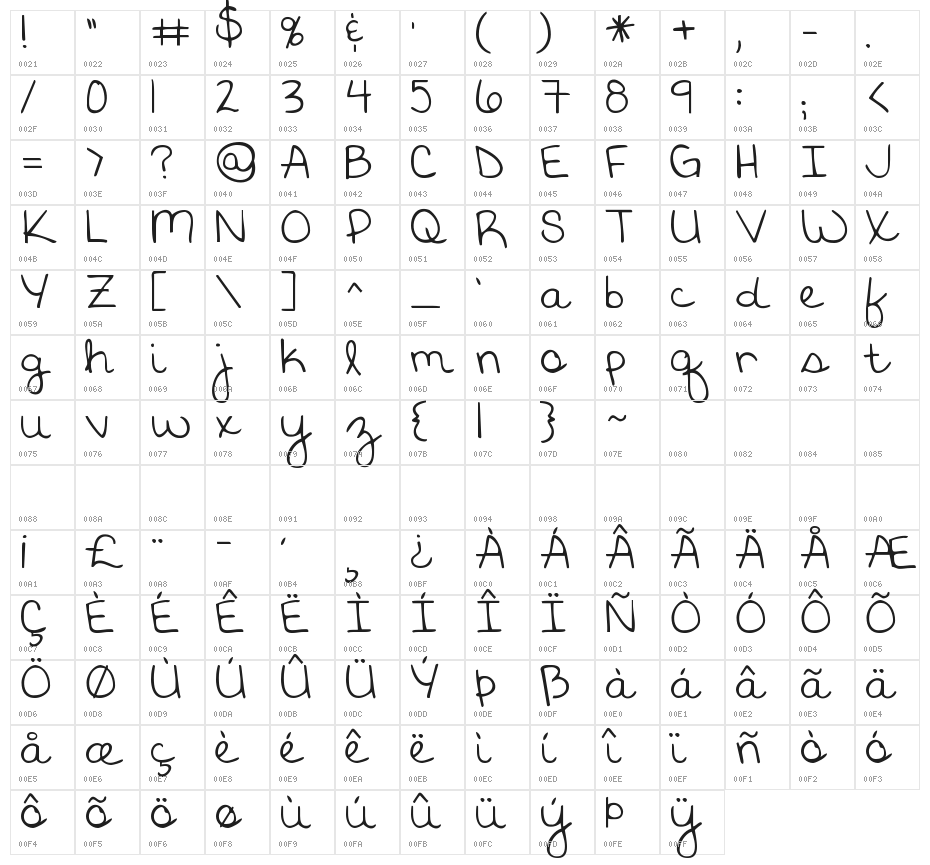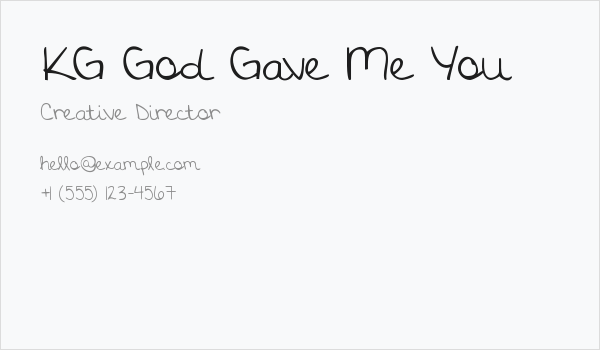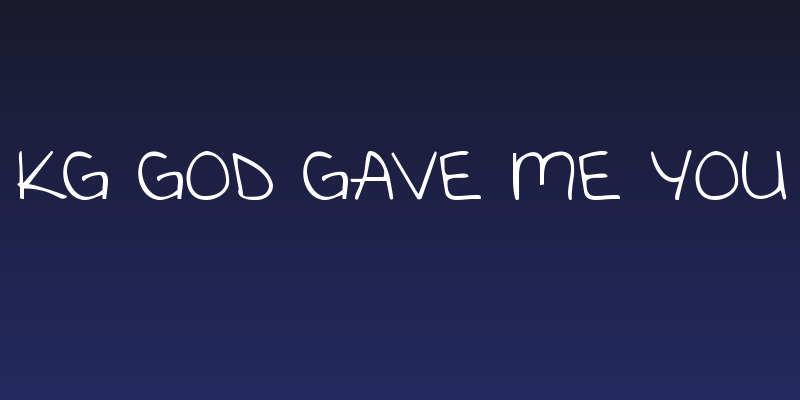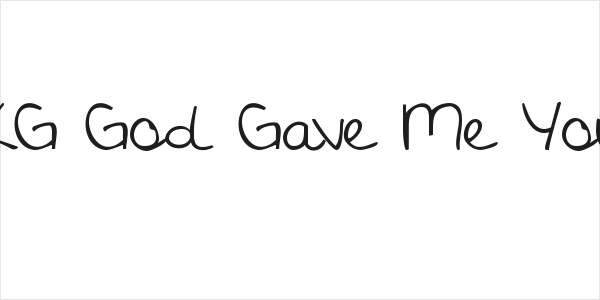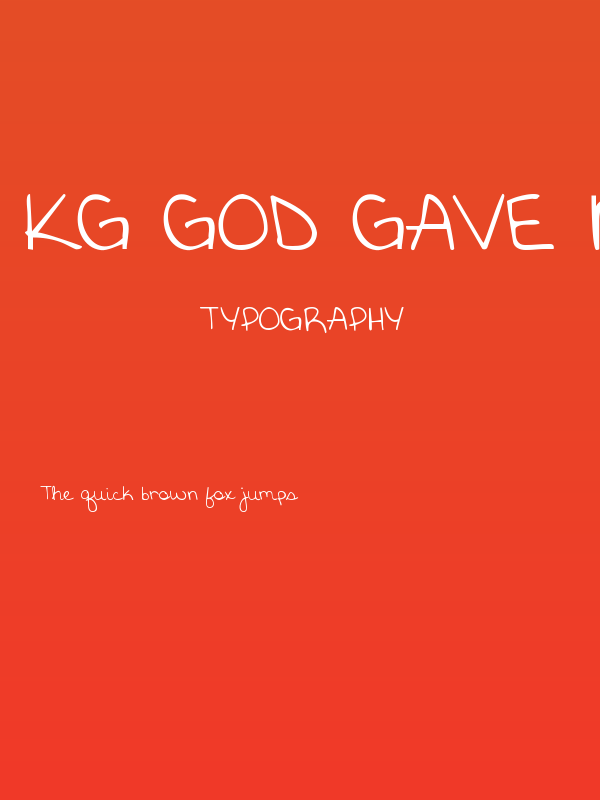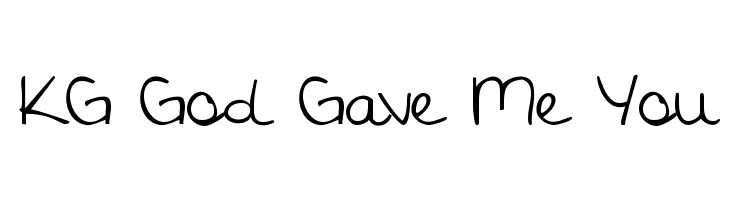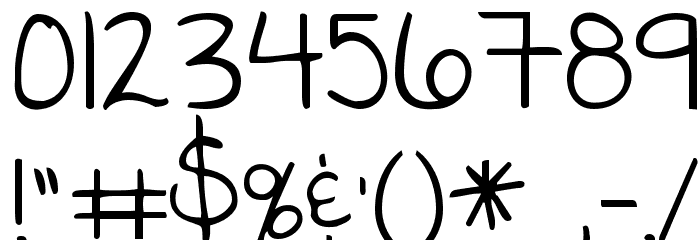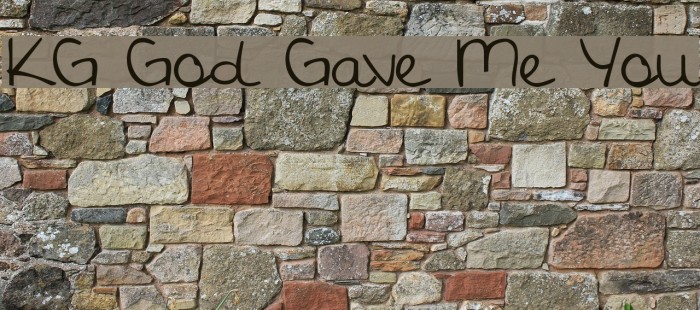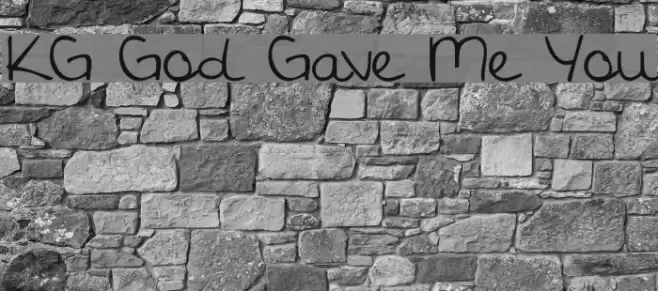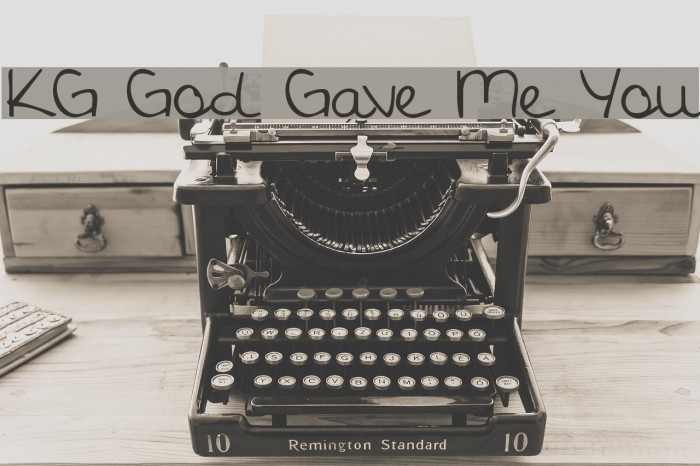
KG God Gave Me You Font
KG God Gave Me You Description
This playful and whimsical font features a handwritten style with a casual and friendly appearance. The letters are slightly irregular, giving it a personal touch that mimics natural handwriting. Uppercase letters are bold and prominent, while lowercase letters maintain a consistent flow with rounded edges. The numbers and special characters follow the same playful style, making them easy to read and visually appealing. This font is ideal for projects that require a personal, informal touch, such as greeting cards, invitations, or children's books. Its unique character adds charm and warmth to any design.
| Overall Style | Casual, Playful |
| Use Case | Headlines, Informal text, Personal projects |
| Proposed Projects | Ideal for greeting cards, invitations, children's books, and personal projects. |